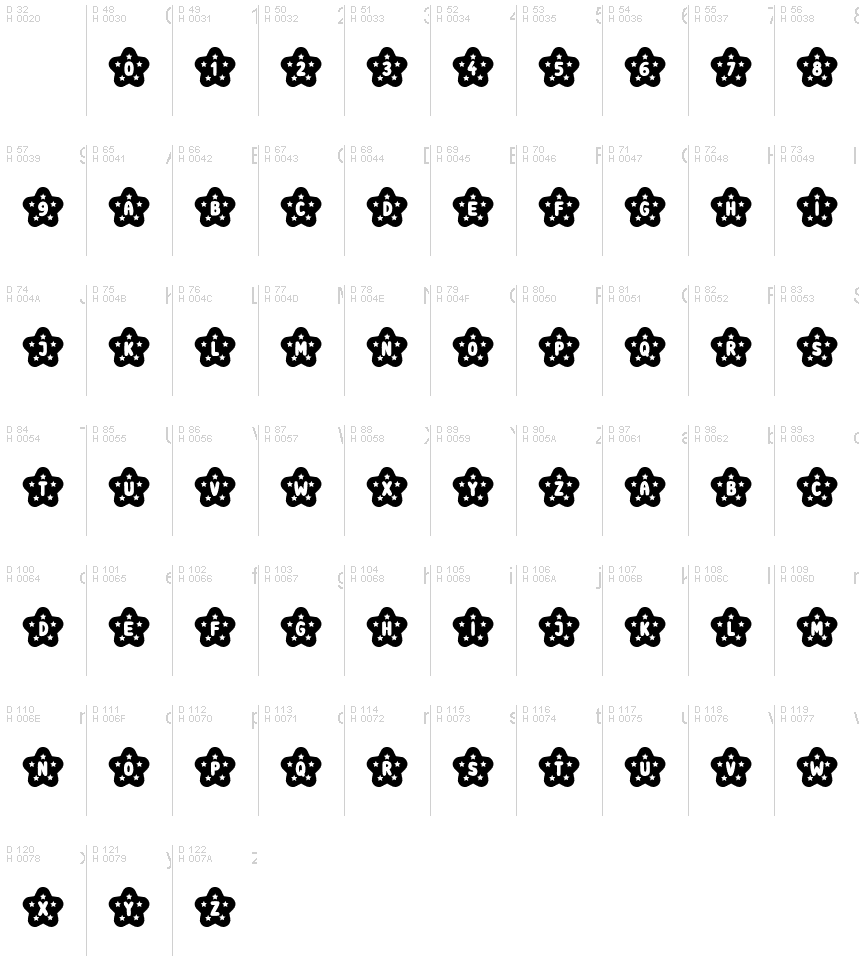
Night Dreams Regular
Night Dreams by Vladimir Nikolic is a bold and decorative display font that adds a touch of whimsy to any project. Its playful curves and intricate details capture the essence of dreamy nights, making it perfect for creative endeavors such as invitations, posters, and branding. The unique style of Night Dreams lends itself well to fashion or beauty projects, but can also be used in more edgy designs for music or art events. With its bold weight and eye-catching design, Night Dreams is sure to make any message stand out from the crowd.
It comes in Regular and Light version!